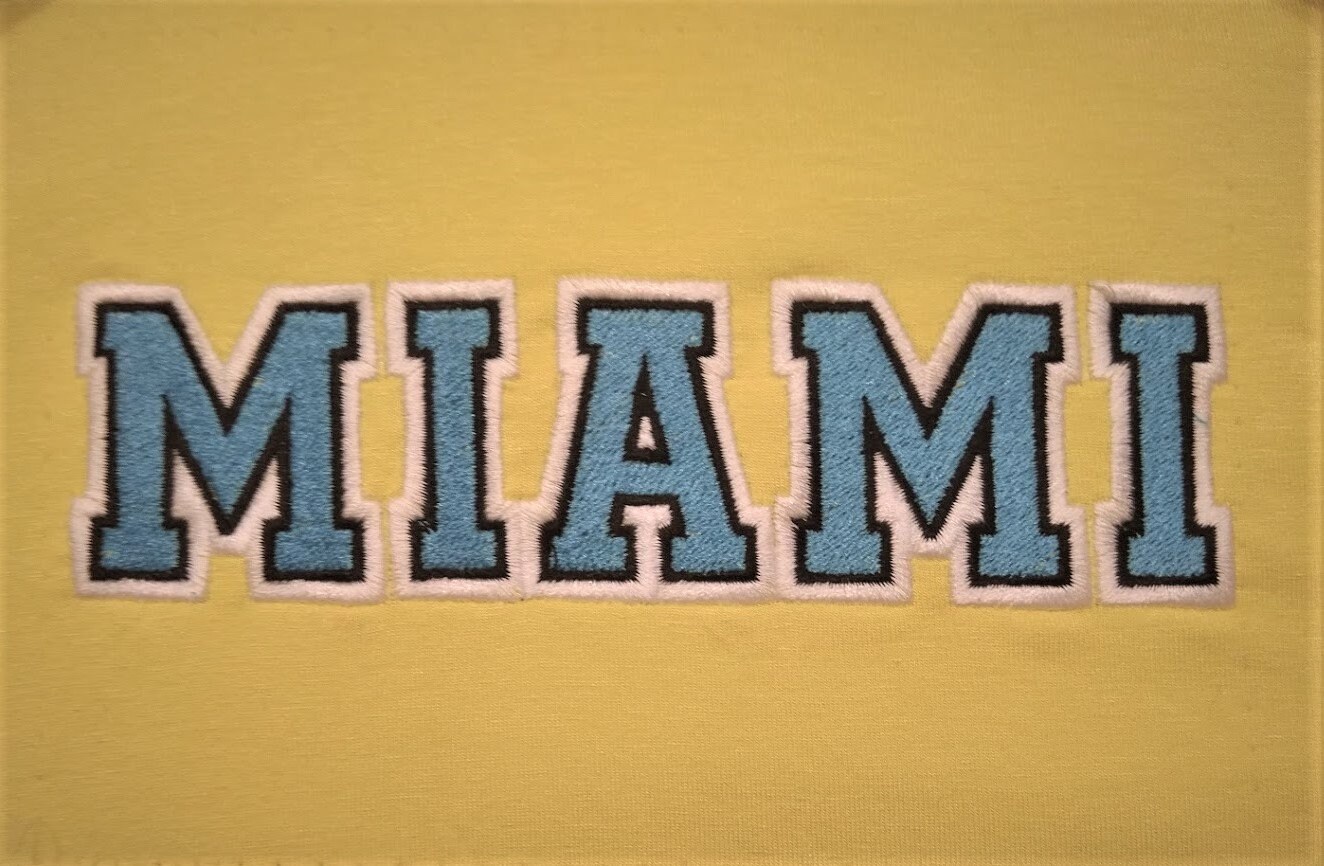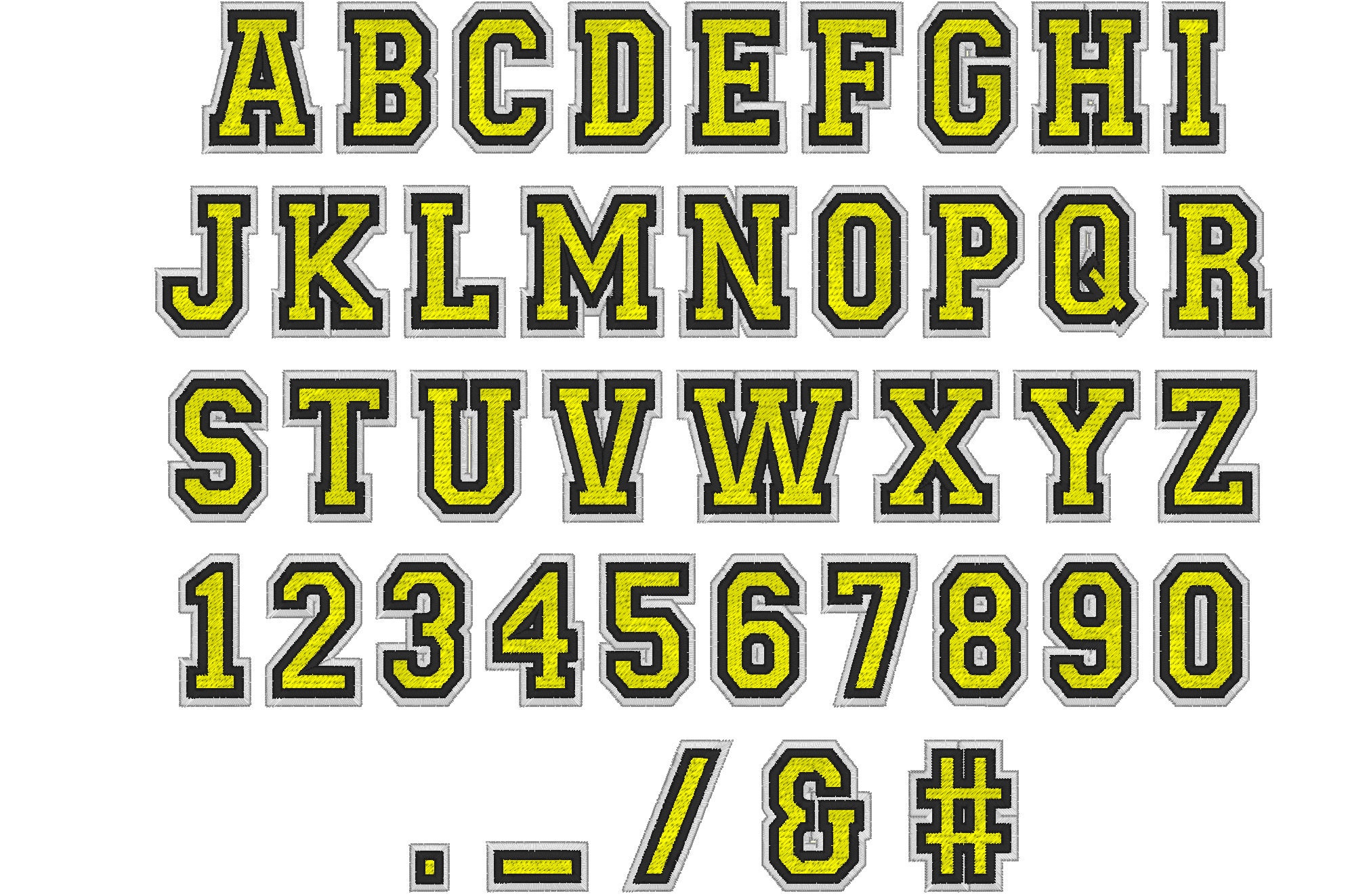
2 outlines Athletic Sport high school varsity collegiate, block mini Font machine embroidery designs - assorted sizes, BX font
Font is fill stitched
Font has 3# colors
Font with 2 contrast outlines